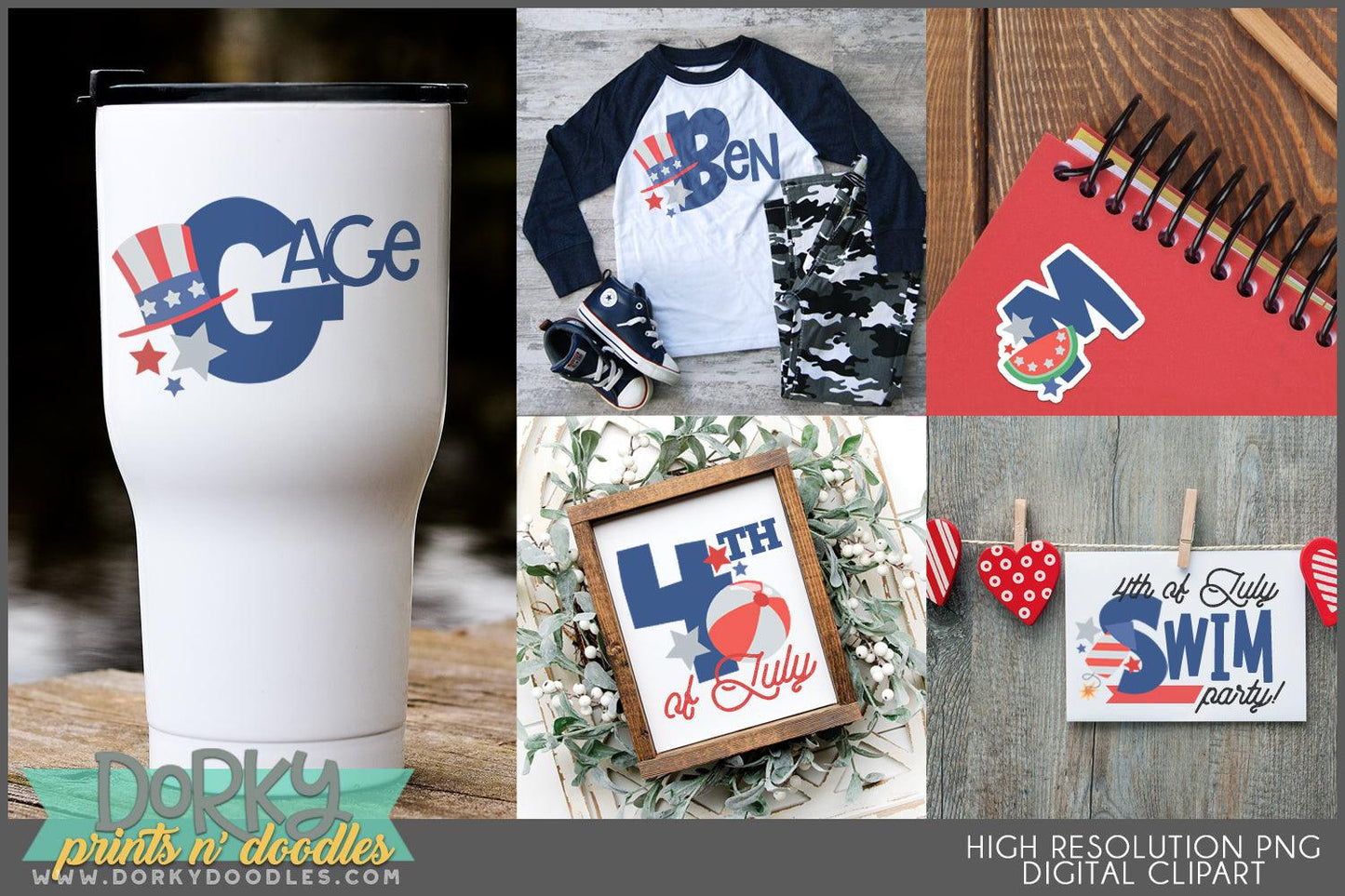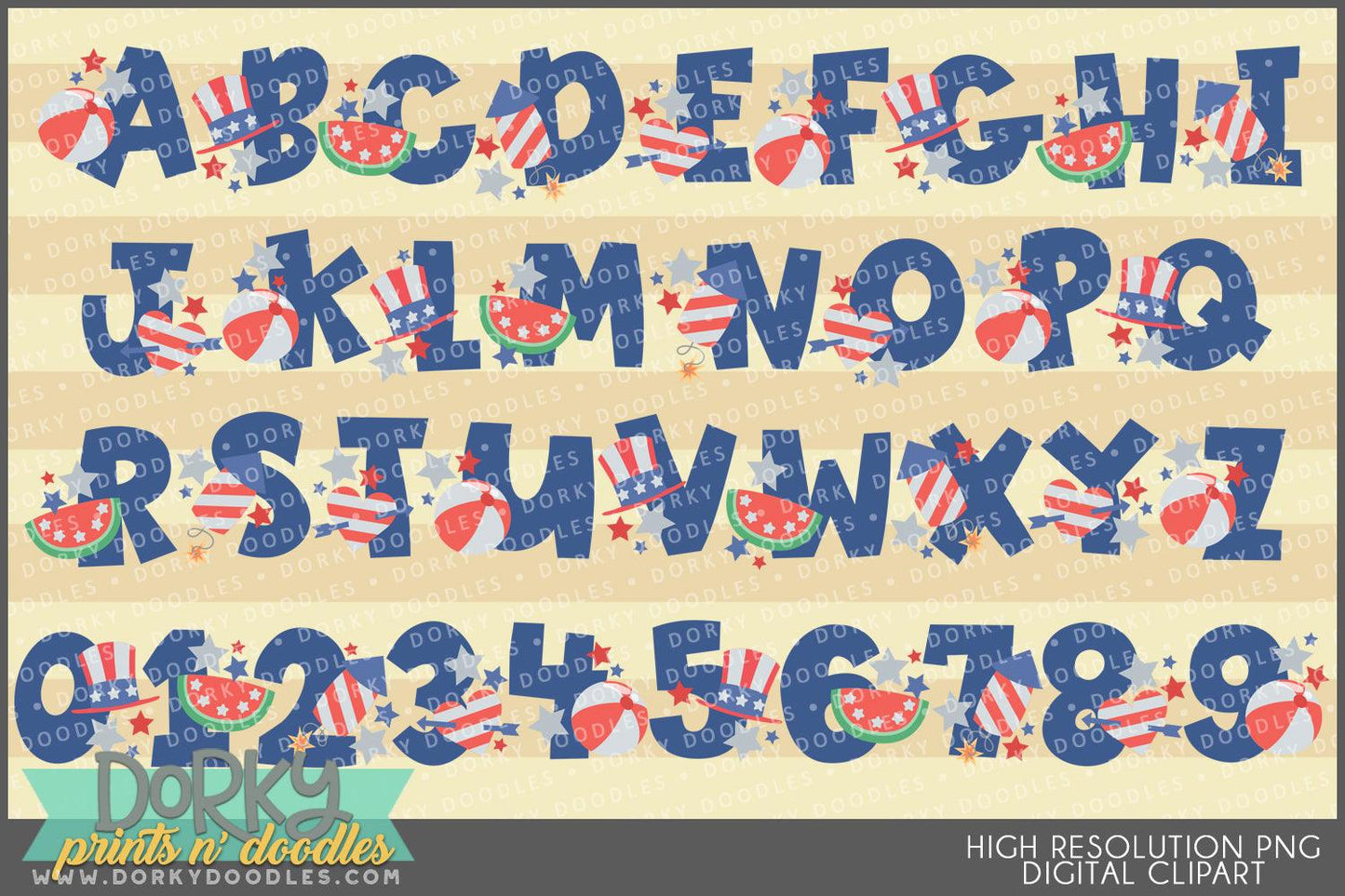
Chunky Patriotic Alphabet Clipart
These cute July 4th alphabet clipart images look fabulous on cards, in scrapbooks, party invitations, planner stickers, sublimation projects, and decor! You will get 36 Digital Clip Art images in high resolution PNG format (they come as a ZIP file that you can download instantly once payment has cleared).
• the full alphabet and numbers 0-9 using fireworks, beach balls, red white and blue hats, watermelons, and stars.